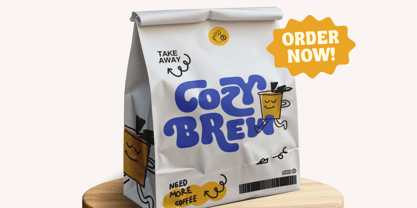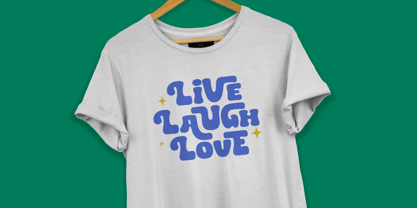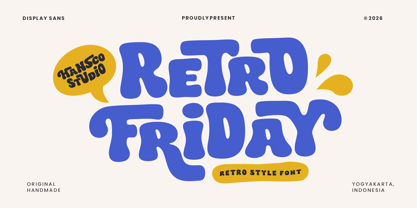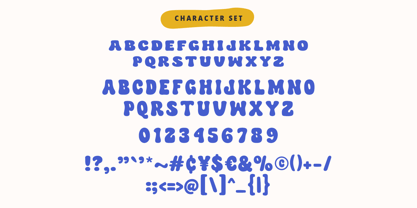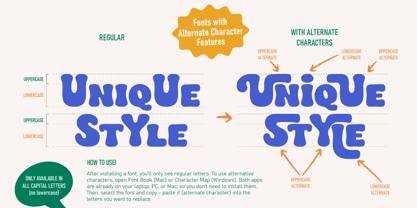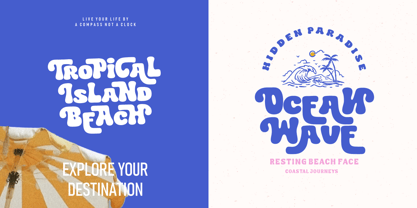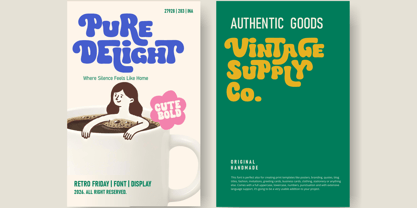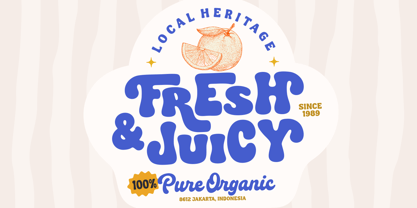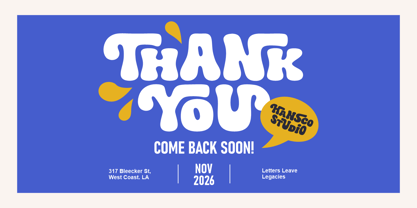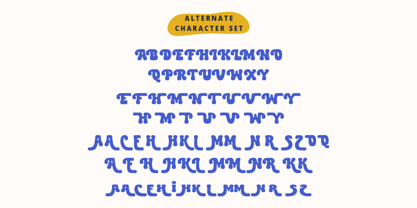
Retro Friday
by HansCo
The Retro Friday Font Family was designed by Burhan Afif and published by HansCo. Retro Friday contains 1 styles.
Retro Friday font is a uniquely crafted retro groovy typeface designed to bring bold character and nostalgic charm to your designs. Built entirely in uppercase letters, it features a collection of stylish alternate characters that allow you to create more dynamic and expressive typography. Its playful curves and vintage-inspired shapes capture the spirit of classic retro aesthetics while still feeling fresh and distinctive. Perfect for logos, branding, posters, apparel designs, and other creative projects, this font helps your work stand out with a strong and memorable retro personality. Features : All Uppercase Numbers & Punctuation Multilingual Alternate Character We highly recommend using a program that supports OpenType features and Glyphs panels like many of Adobe apps and Corel Draw, so you can see and access all Glyph variations. How to access alternate? : https://hanscostudio.com/tutorial/ Enjoy!
Designers: Burhan Afif
Publisher: HansCo
Foundry: HansCo
Design Owner: HansCo